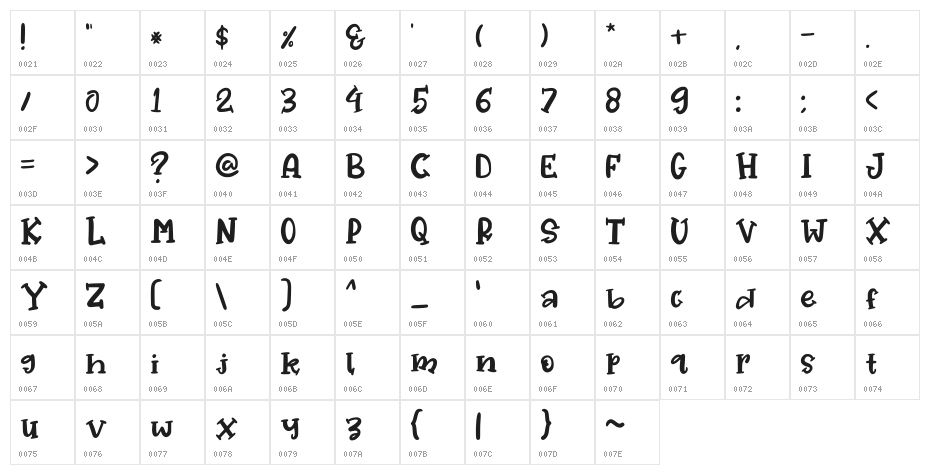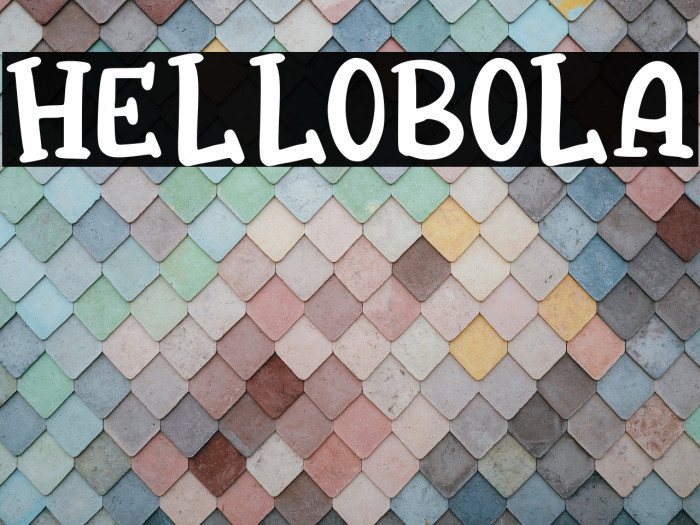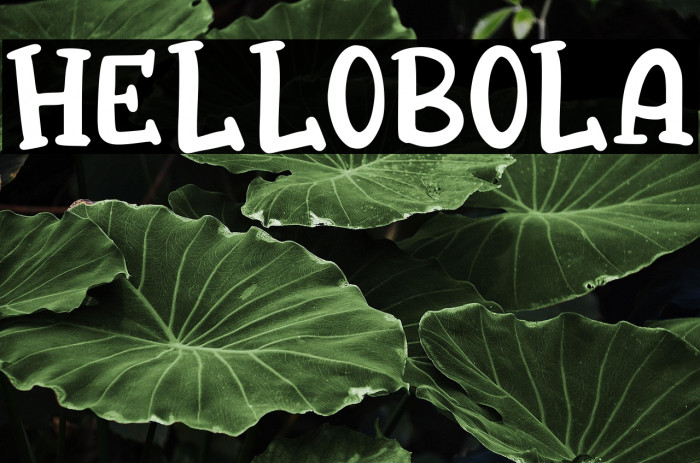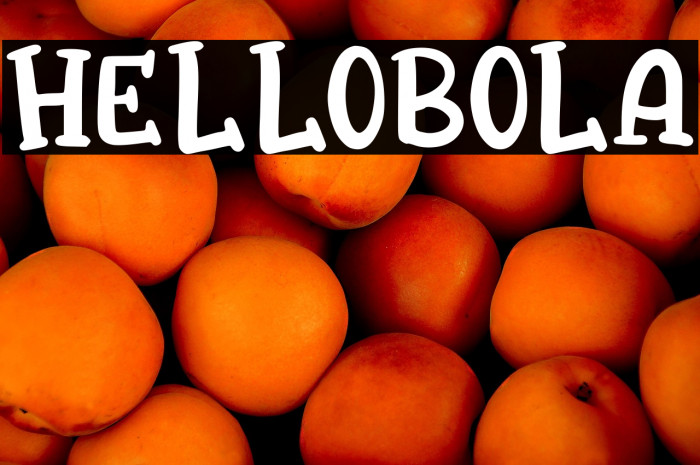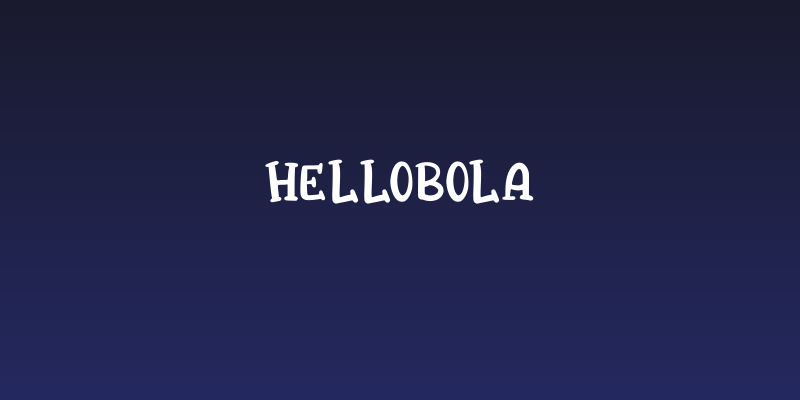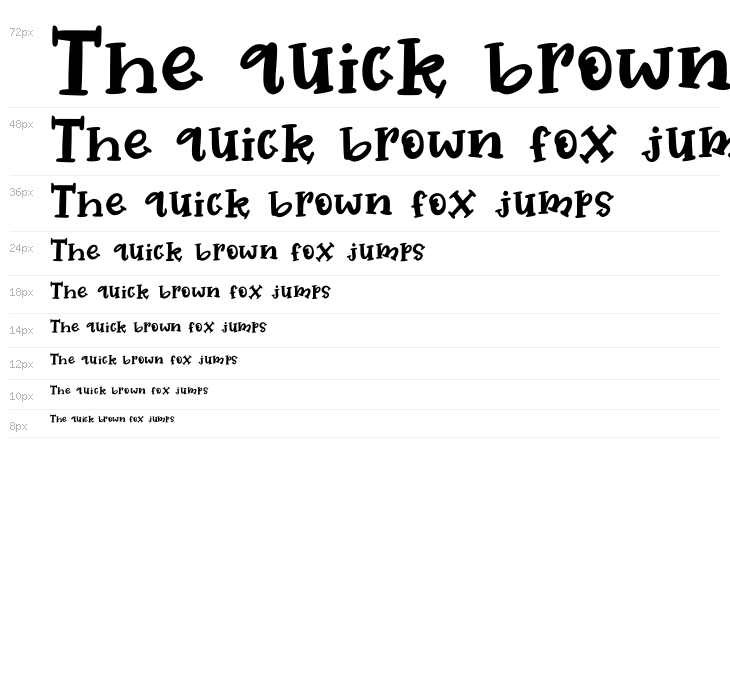
HELLOBOLA Font
HELLOBOLA Description
This font features a playful and whimsical design, characterized by its bold and rounded letterforms. The strokes are thick and consistent, giving it a strong presence. Each character has a unique flair, with slight variations in the curves and angles, adding to its charm. The uppercase letters are bold and prominent, while the lowercase letters maintain a consistent style with a slightly more compact form. The numerals are equally bold, ensuring readability. Special characters are designed with the same playful aesthetic, making this font suitable for creative and informal applications.